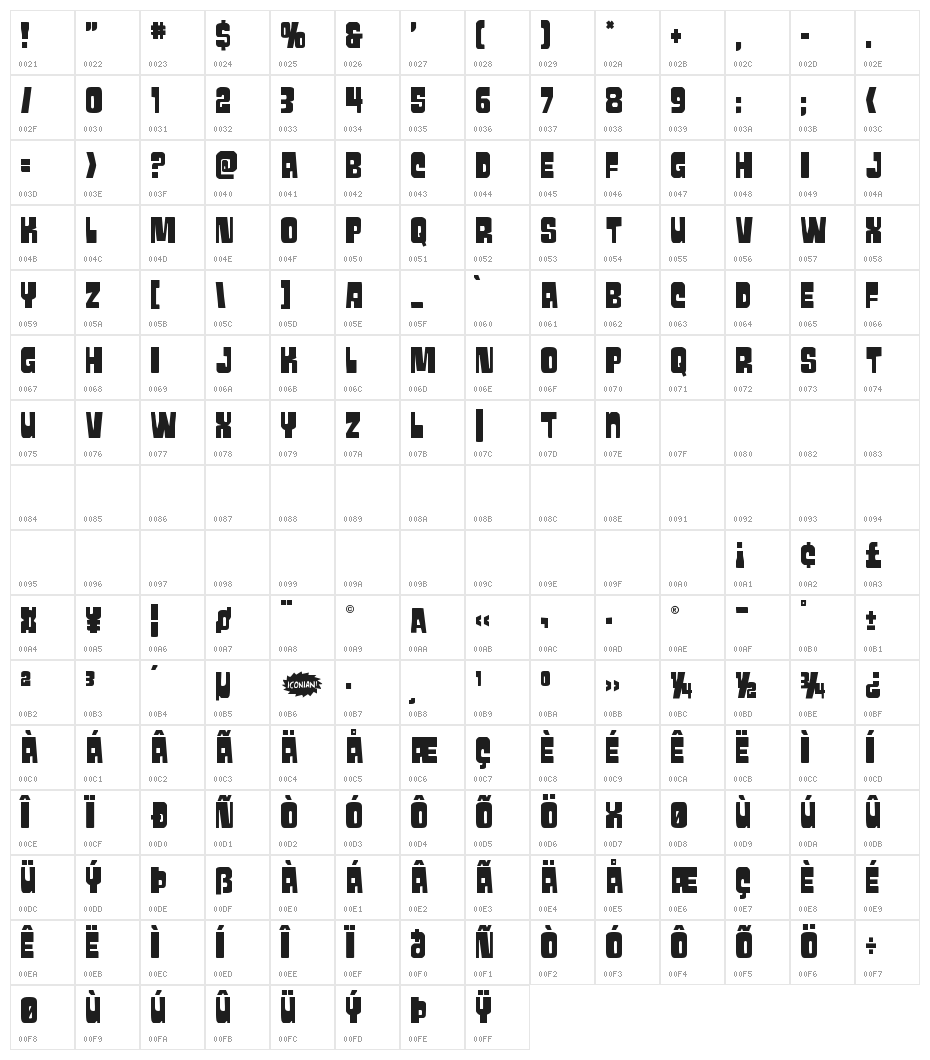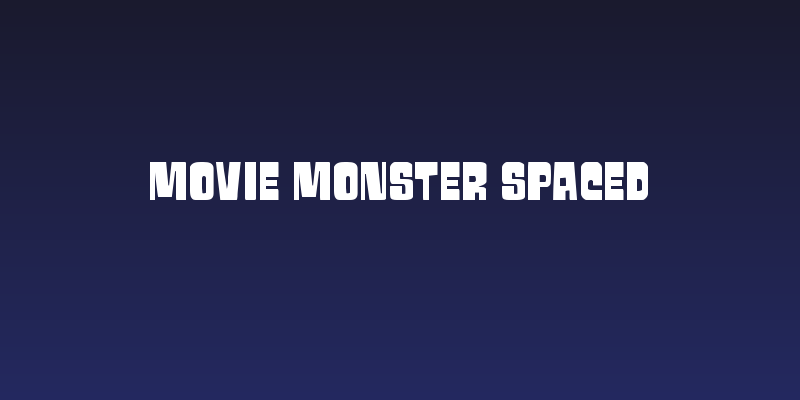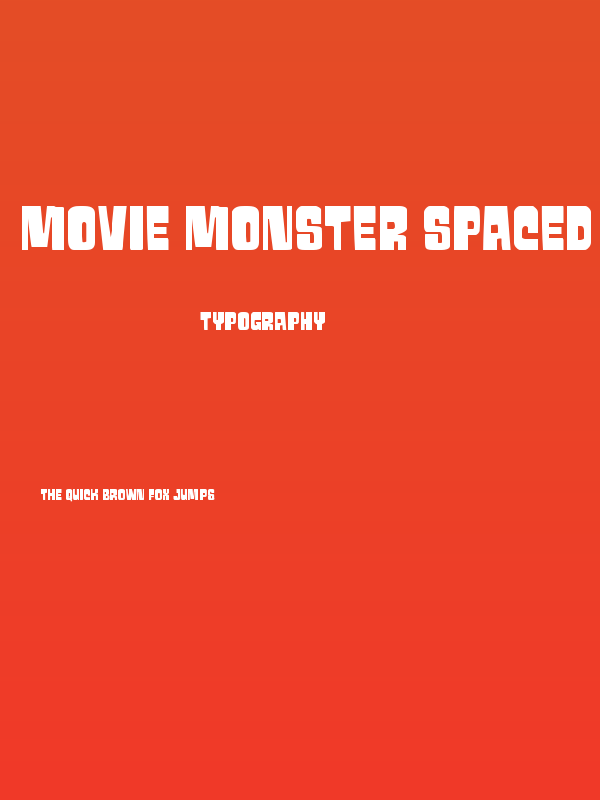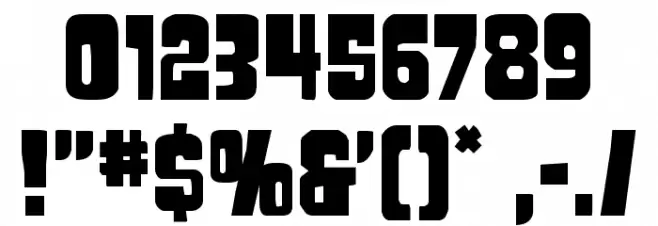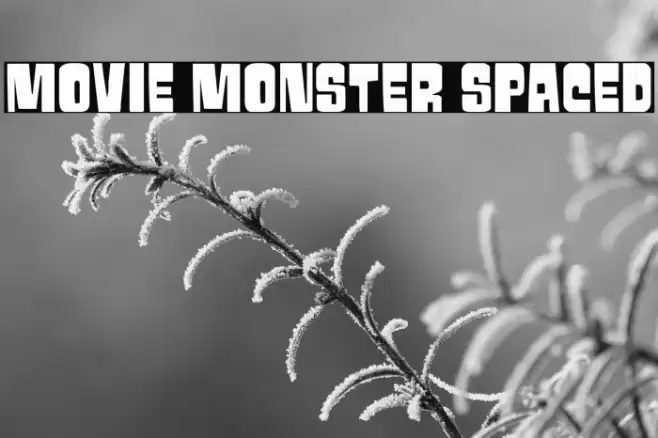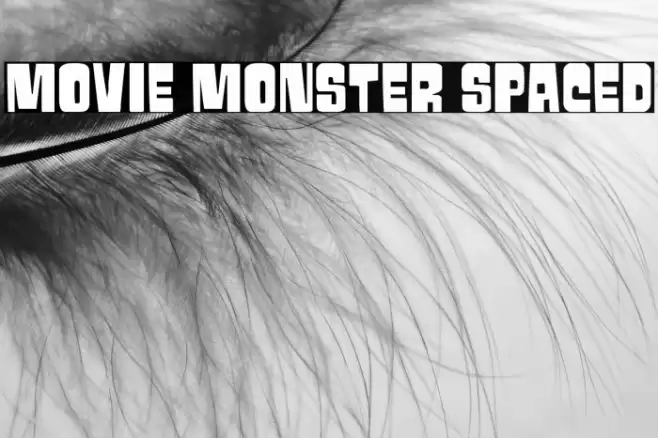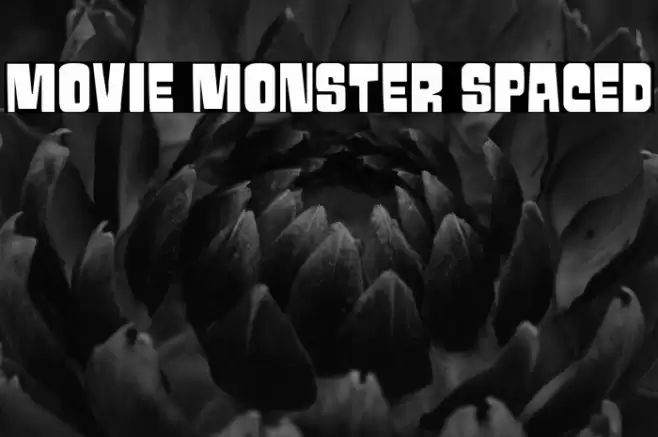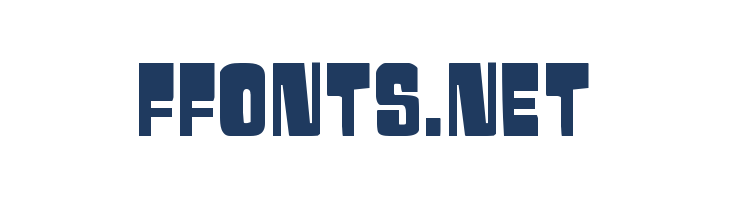
Movie Monster Spaced Font
This font features bold, blocky characters with a distinct, heavy presence. The uppercase letters are particularly wide and imposing, giving a sense of strength and impact. The design includes sharp angles and a slightly condensed form, which adds to its dramatic appearance. The numbers and special characters maintain this bold style, ensuring consistency throughout. The font's overall look is reminiscent of classic movie posters or vintage horror themes, making it ideal for projects that require a strong visual statement.
| Overall Style | Vintage, Dramatic |
| Proposed Projects | Ideal for movie posters, horror-themed designs, video game titles, and any project needing a bold, impactful typeface. |